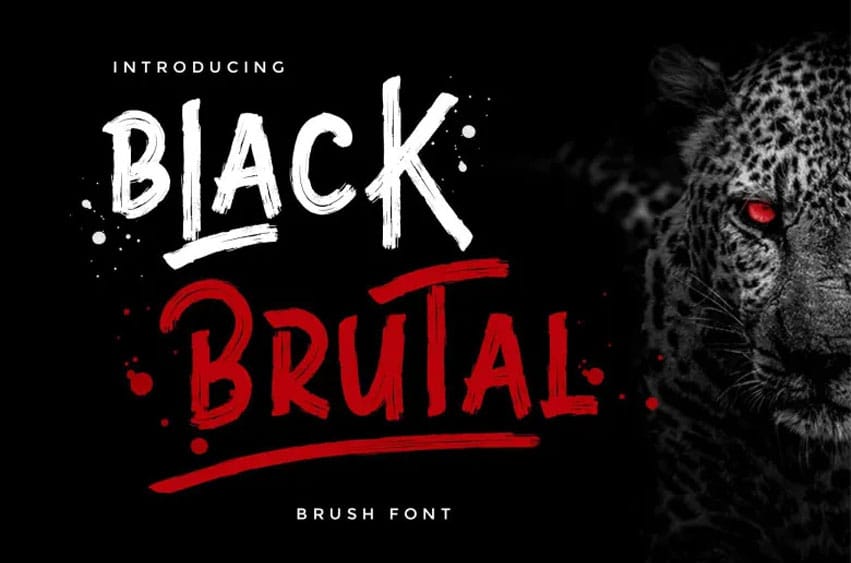
Black Brutal Font Typeface appeals through its distinctive brush strokes which form an attractive design. The font possesses perfectly controlled characters and matches its elements within precise spacing and kerning. The style of Black Brutal matches with game and horror and movie themes that use classic and vintage elements.